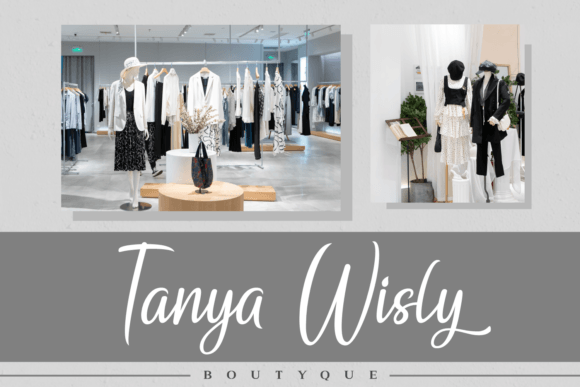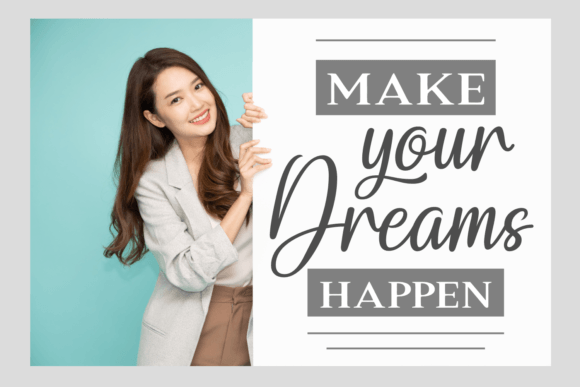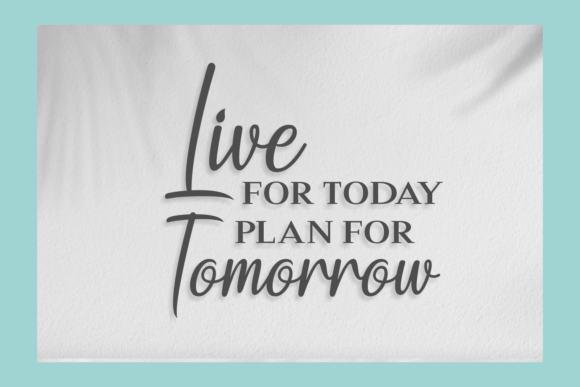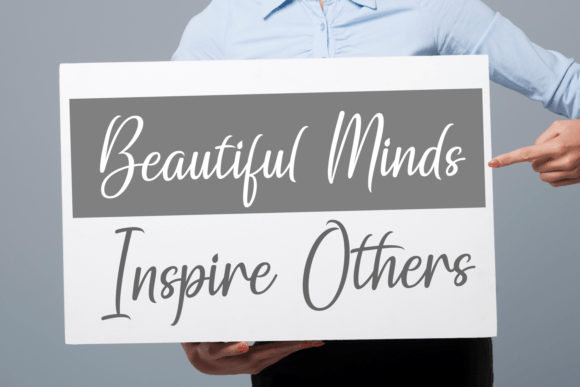
Introduction to Janaka Font
Janaka is a delicate, elegant and flowing handwritten font.
It has beautiful and well-balanced characters and as a result, it matches a wide pool of designs .
Janaka Font offers exceptional quality and versatility, making it a valuable addition to your design toolkit. Whether you’re creating for personal projects or commercial use, Janaka Font delivers professional results.